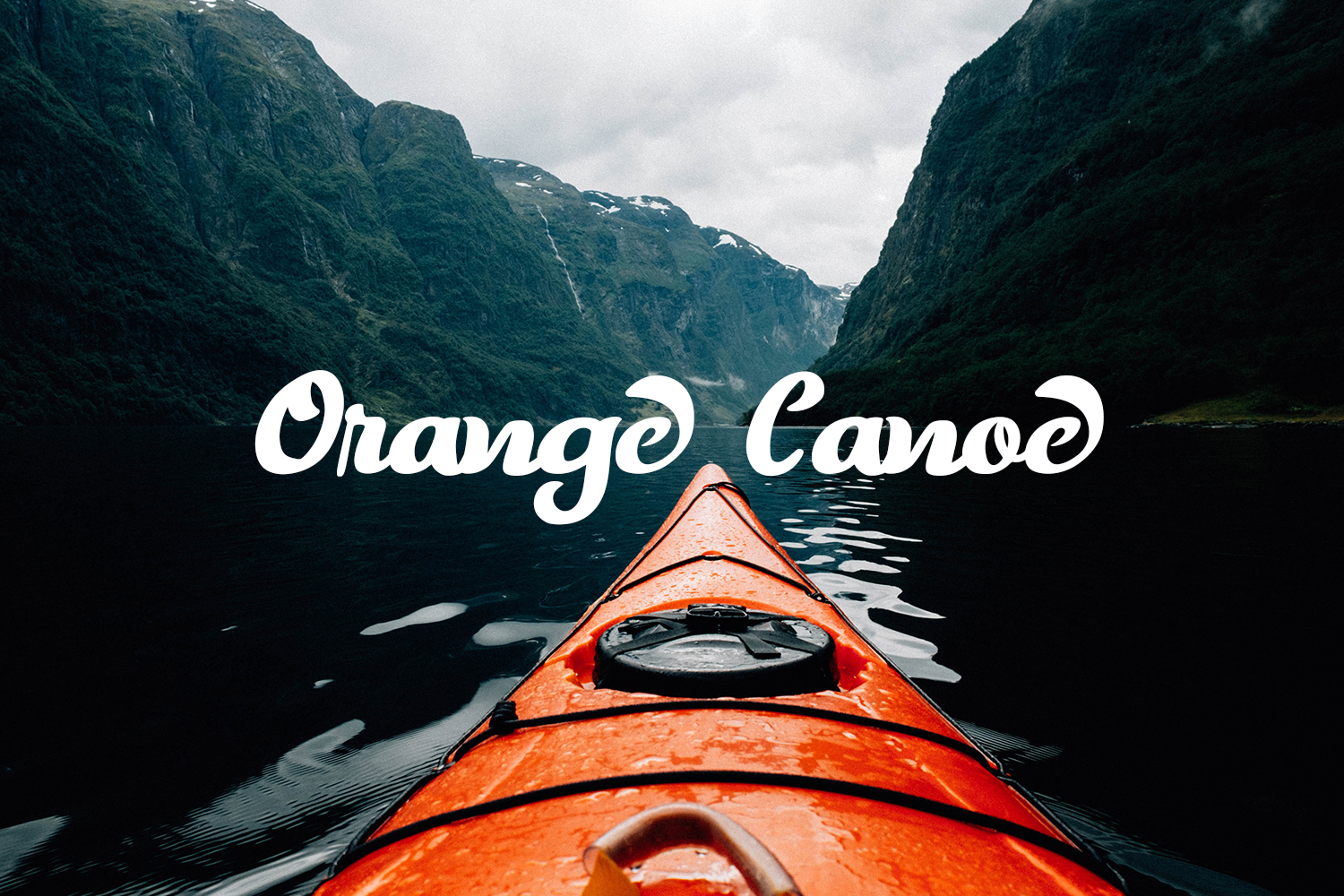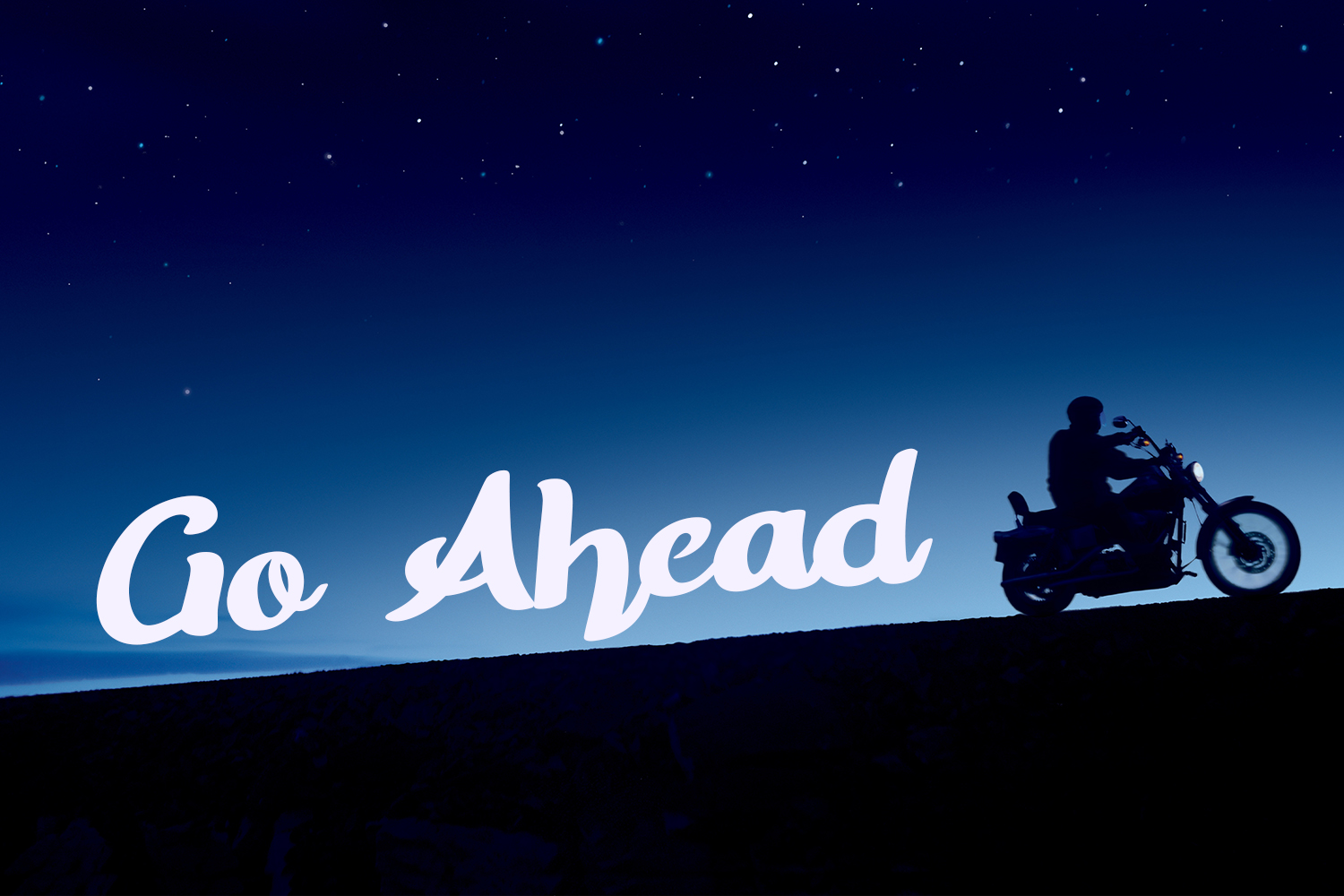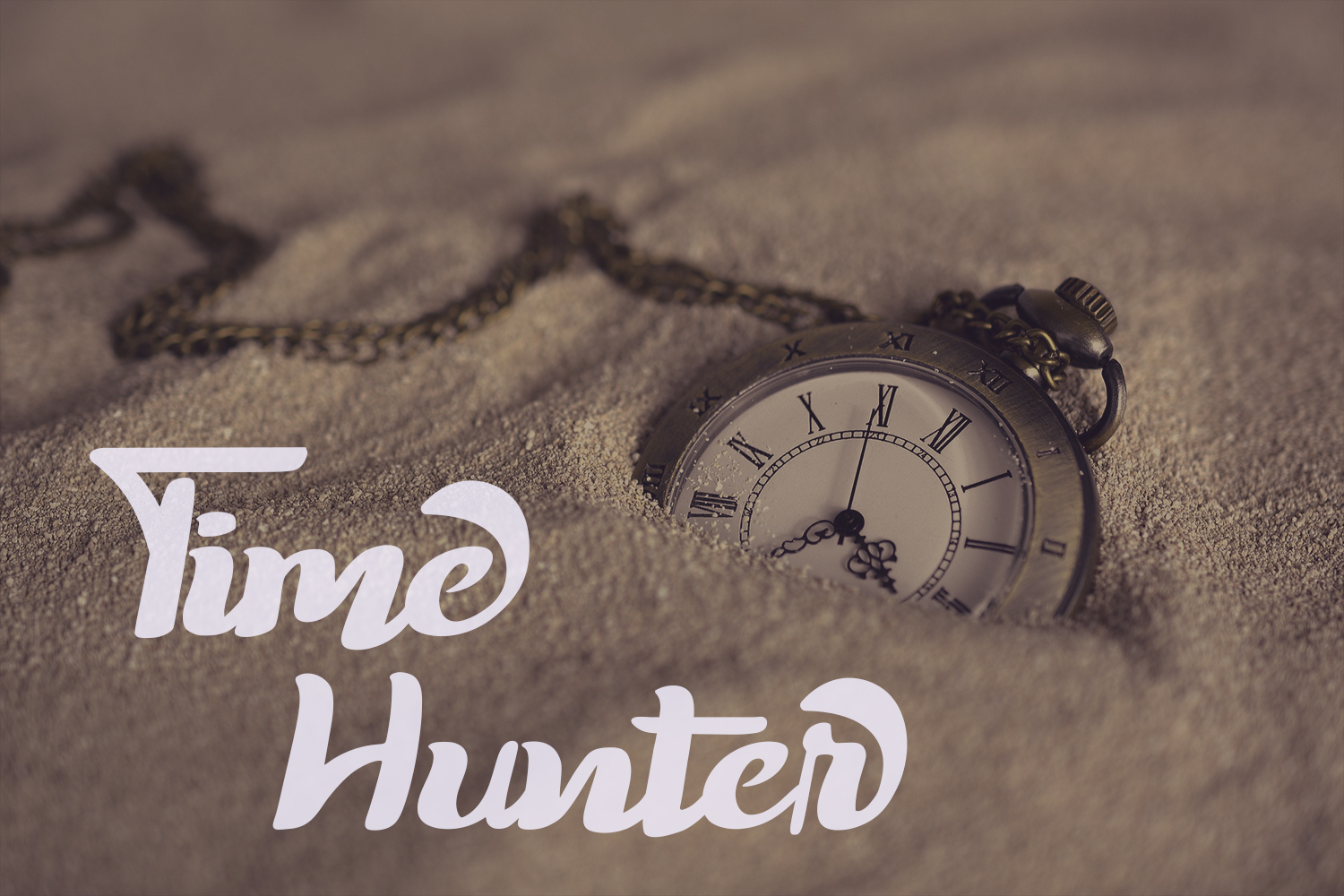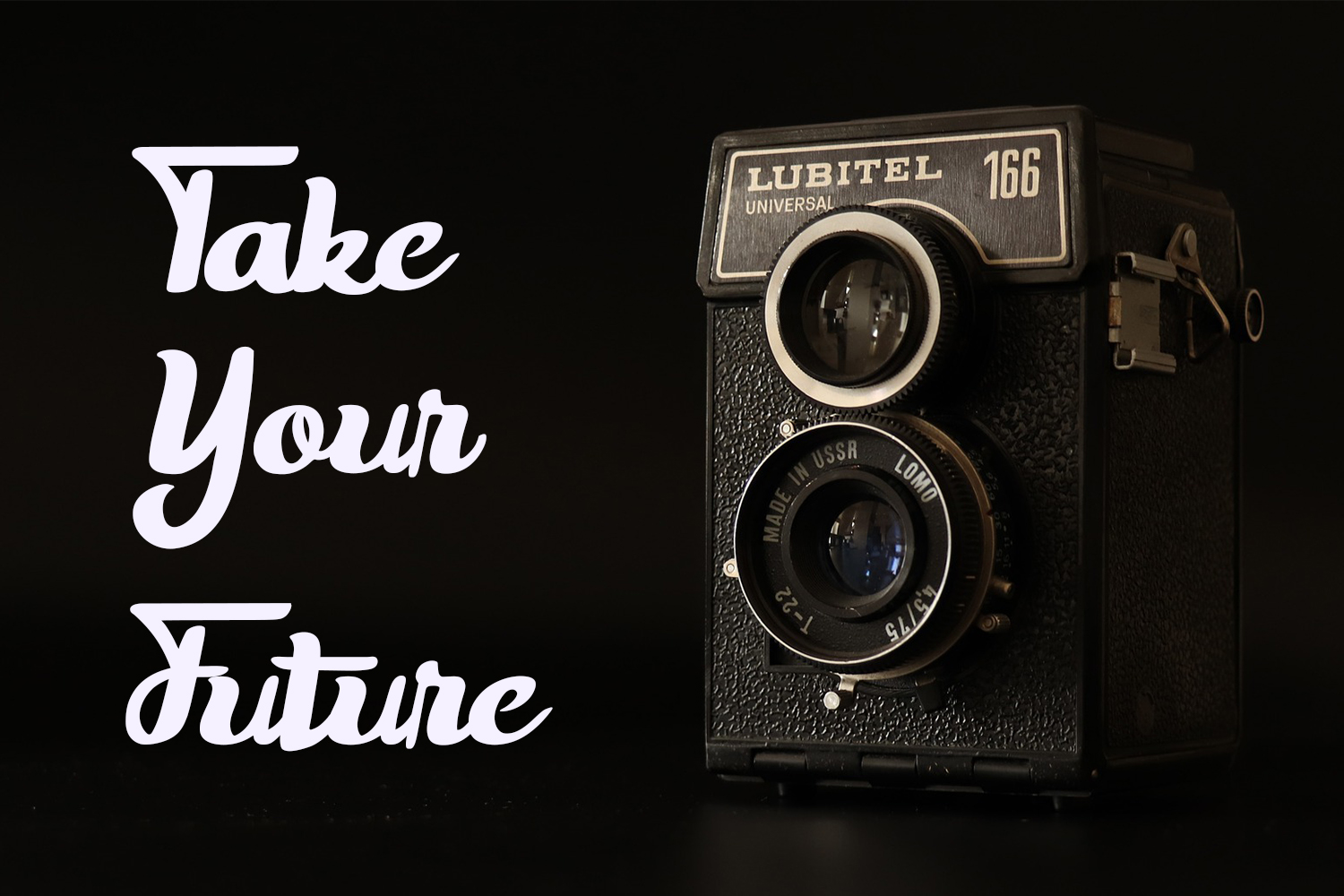
Trackers Free Font
Trackers Free Font come with open type features with a lot of alternates and swash, it helps you to make great lettering. Trackers best use for Logotype, heading, cover, poster, logos, quotes, product packaging, header, merchandise, social media & greeting cards, and many more. This font is also supported by multi-language. To access the alternate glyphs, you need a program that supports OpenType features such as Adobe Illustrator CS, Adobe Photoshop CC, Adobe Indesign, and Corel Draw. This free typeface was designed by talented Nahar Studio. If you like it don’t forget to check out the full version.